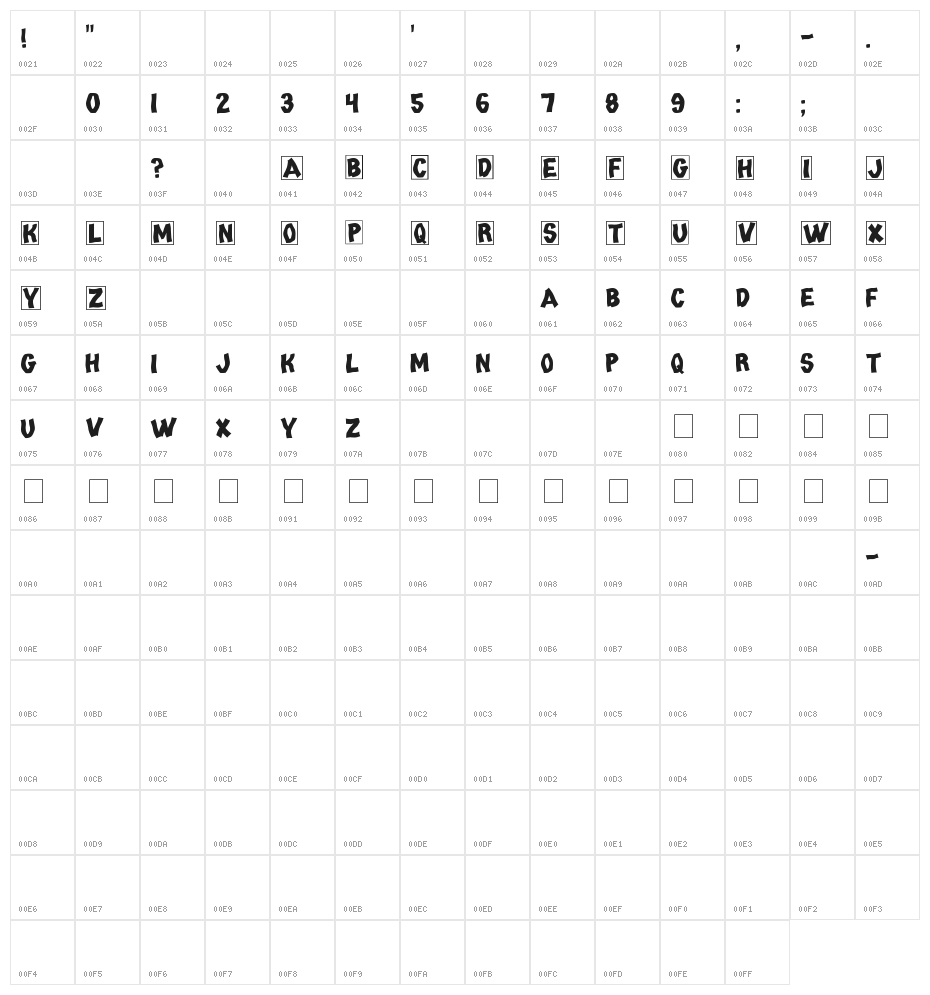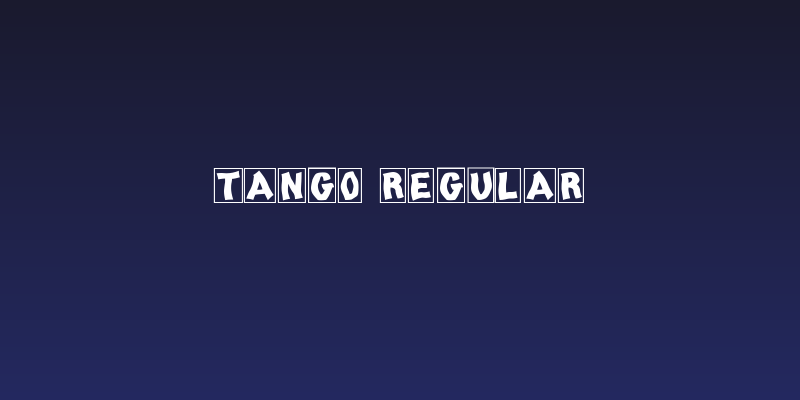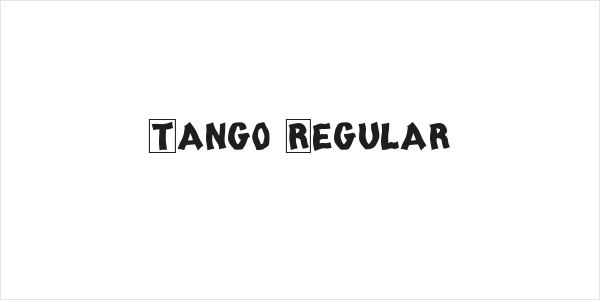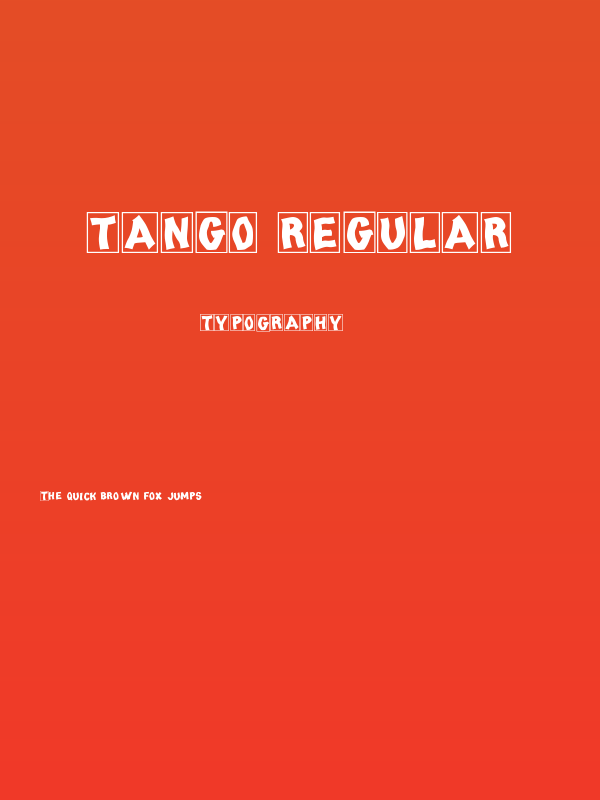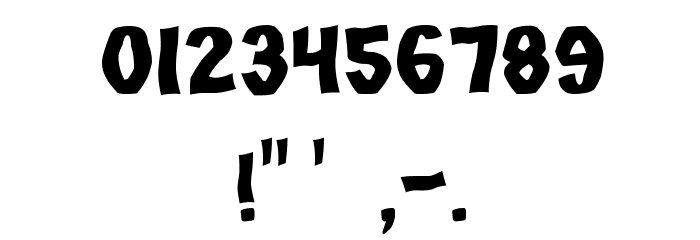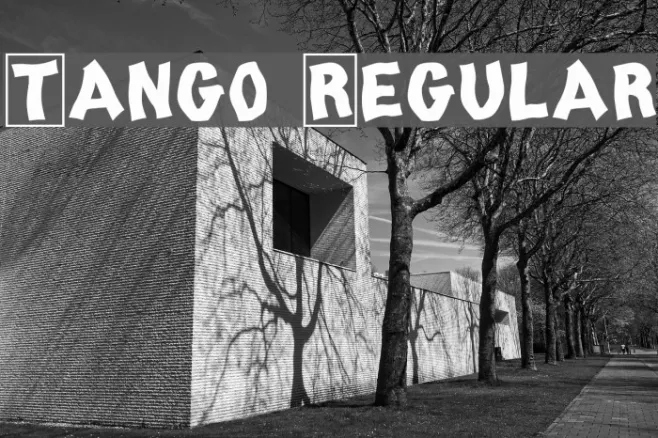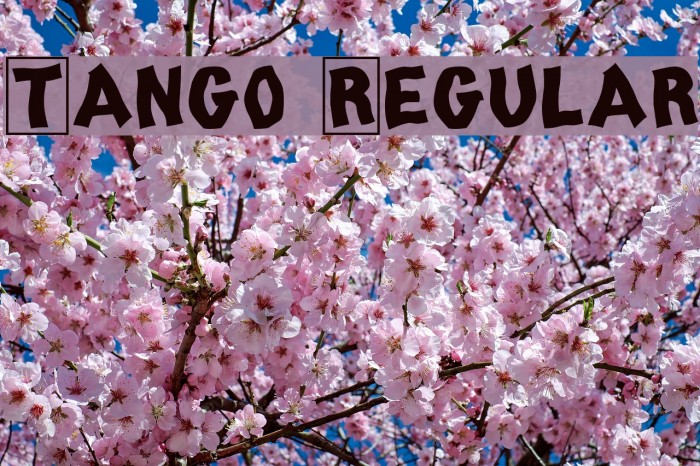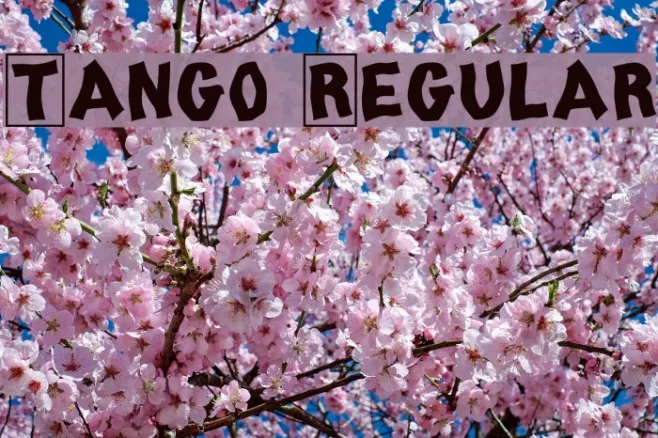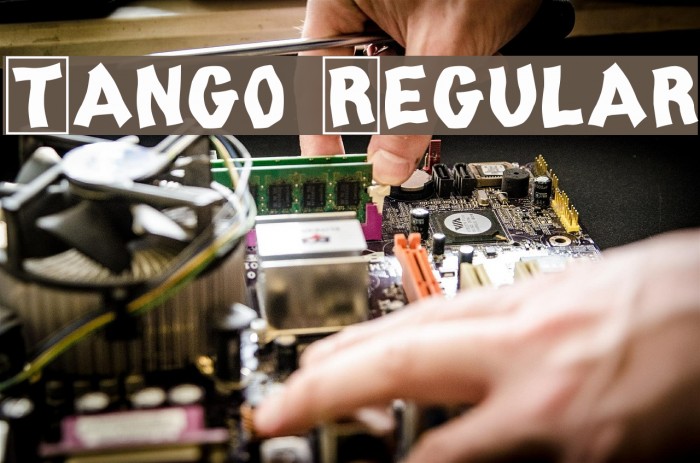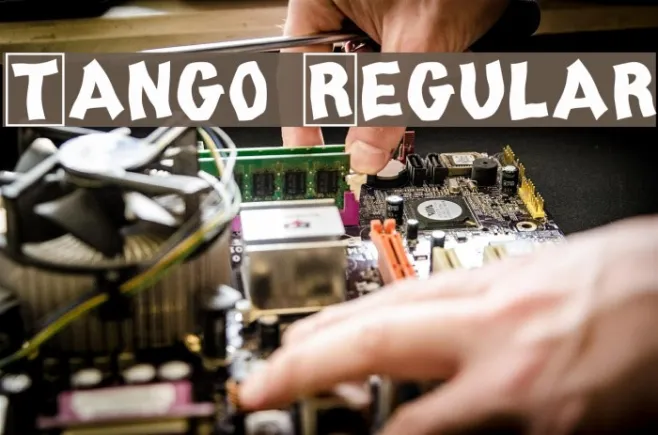
Tango Regular Font
Tango Regular Description
This font features a bold and playful style with a hand-drawn, cartoonish appearance. The uppercase letters are enclosed in squares, adding a unique boxed effect that enhances its decorative nature. The characters have irregular, dynamic shapes with varying stroke widths, giving them a lively and energetic feel. The numbers and special characters maintain this whimsical style, making the font suitable for creative and informal applications. Its distinctiveness is emphasized by the bold, uneven strokes and the quirky, artistic flair present in each character.
| Overall Style | Playful, Artistic |
| Proposed Projects | Ideal for children's books, comic strips, playful branding, and creative posters. |